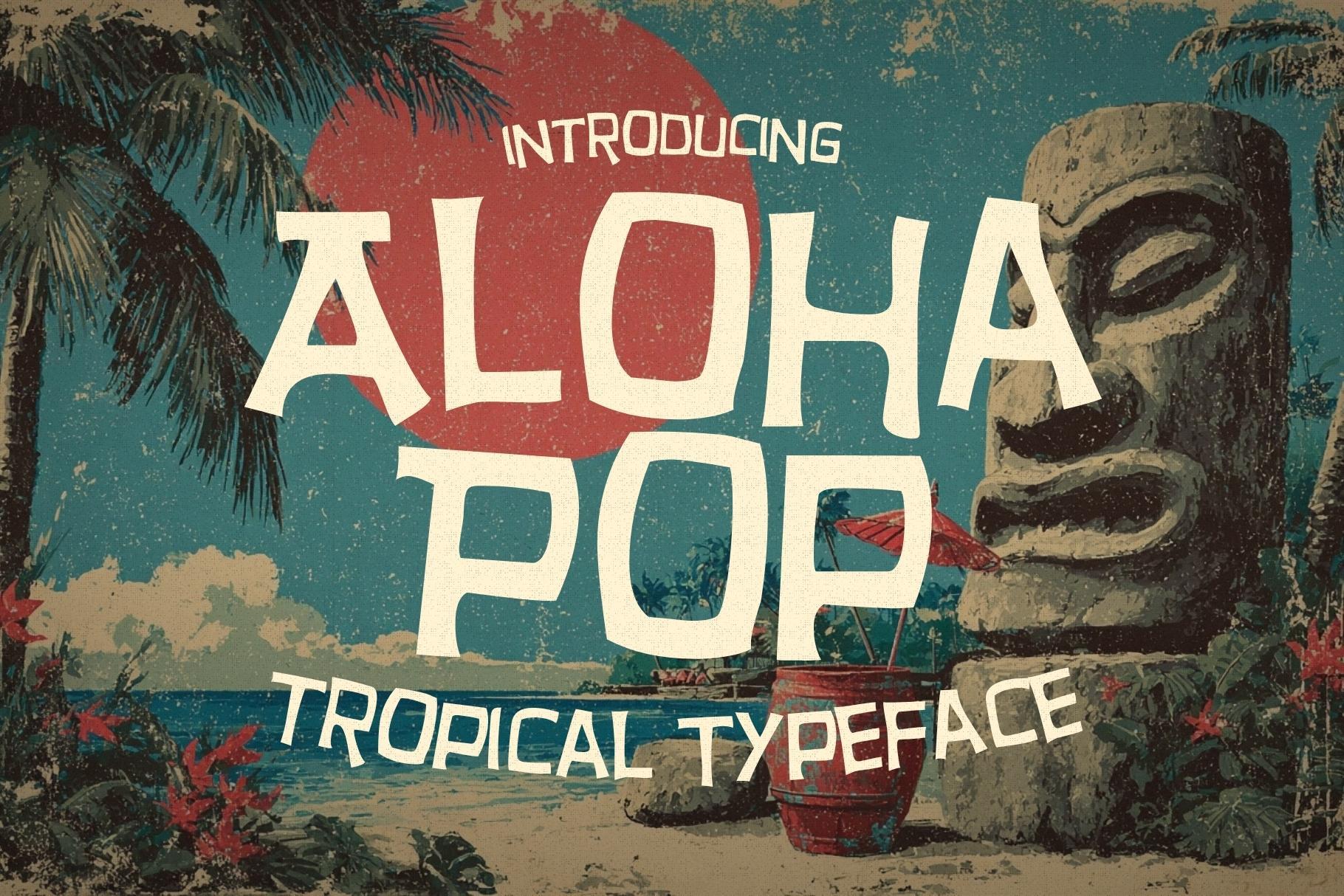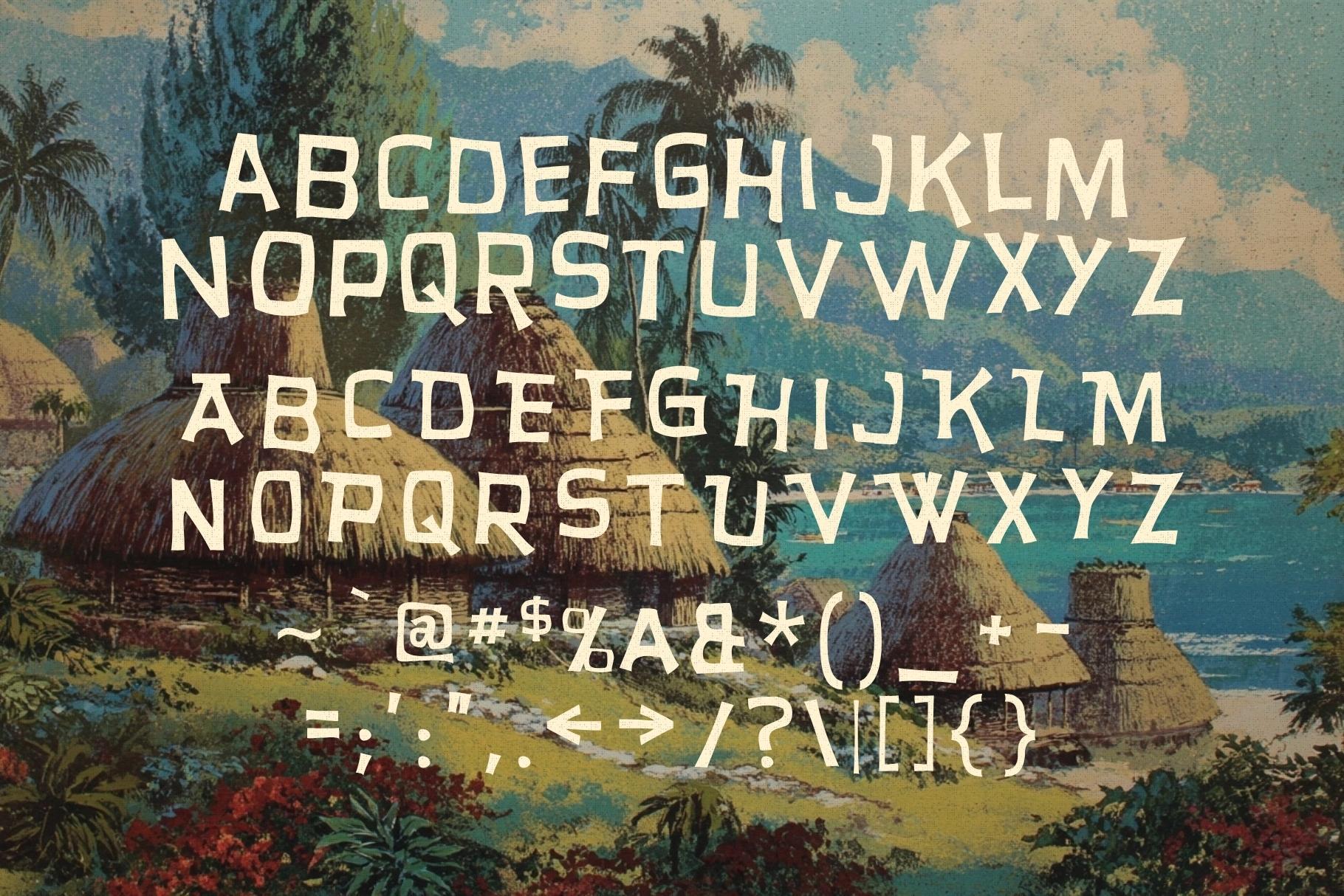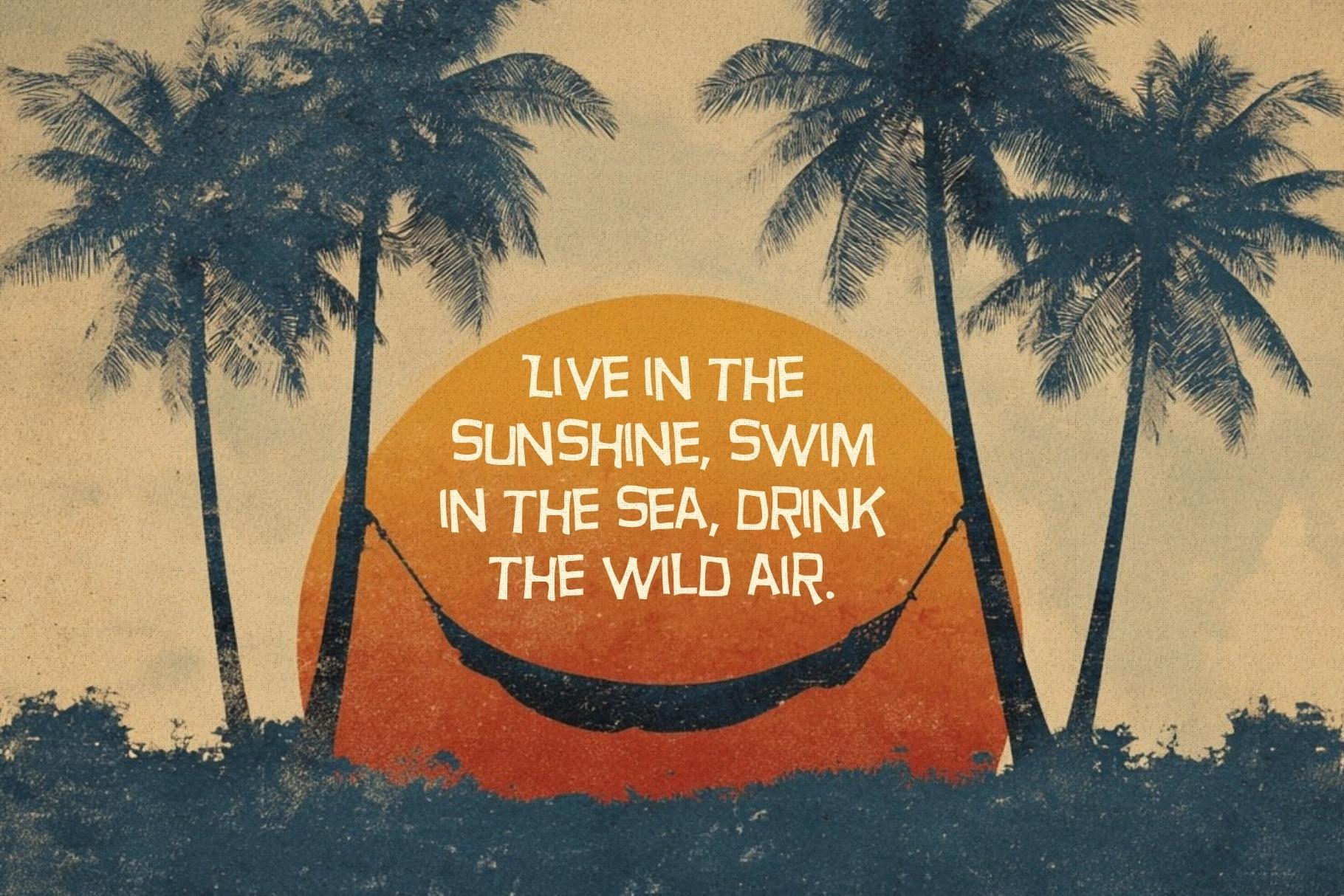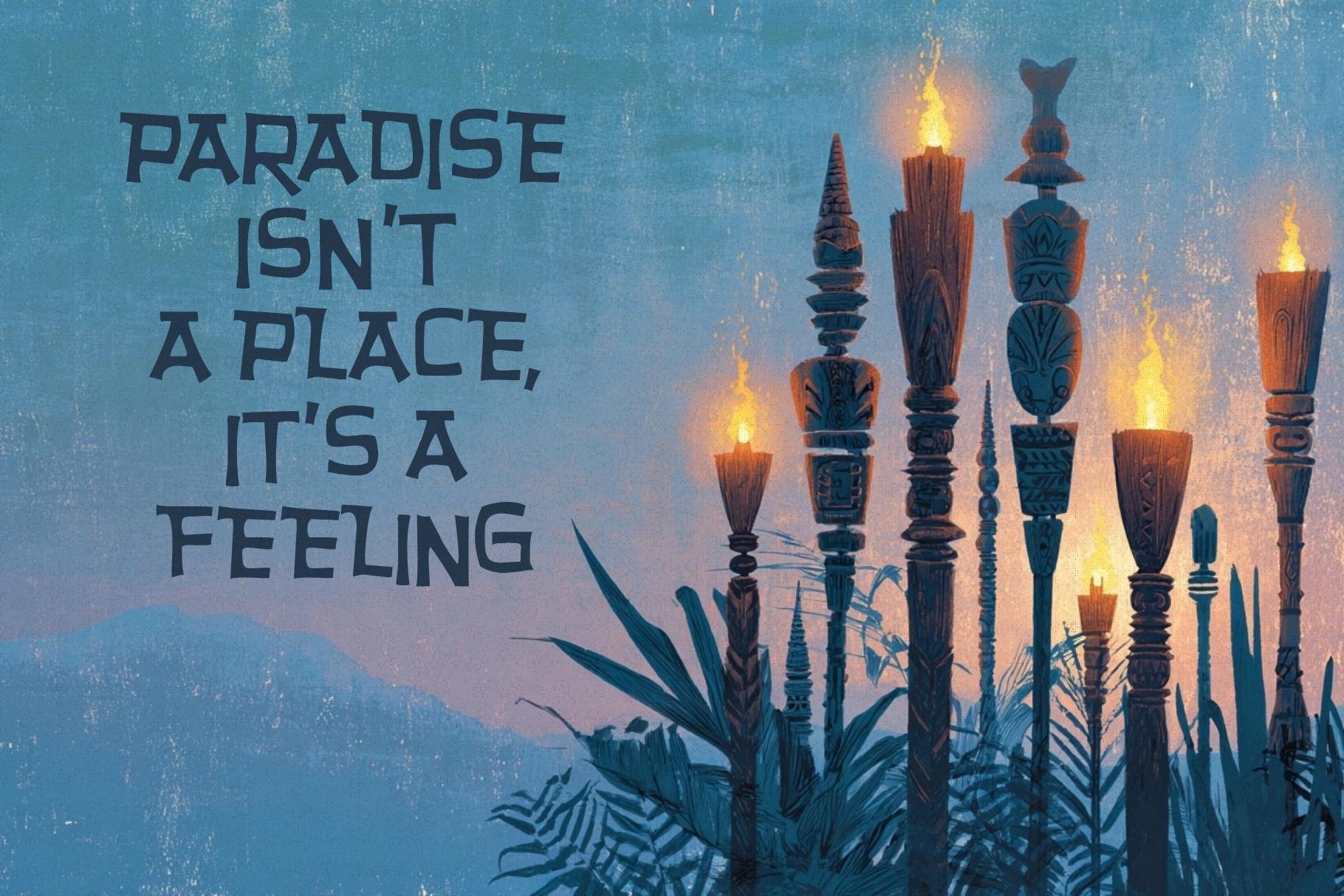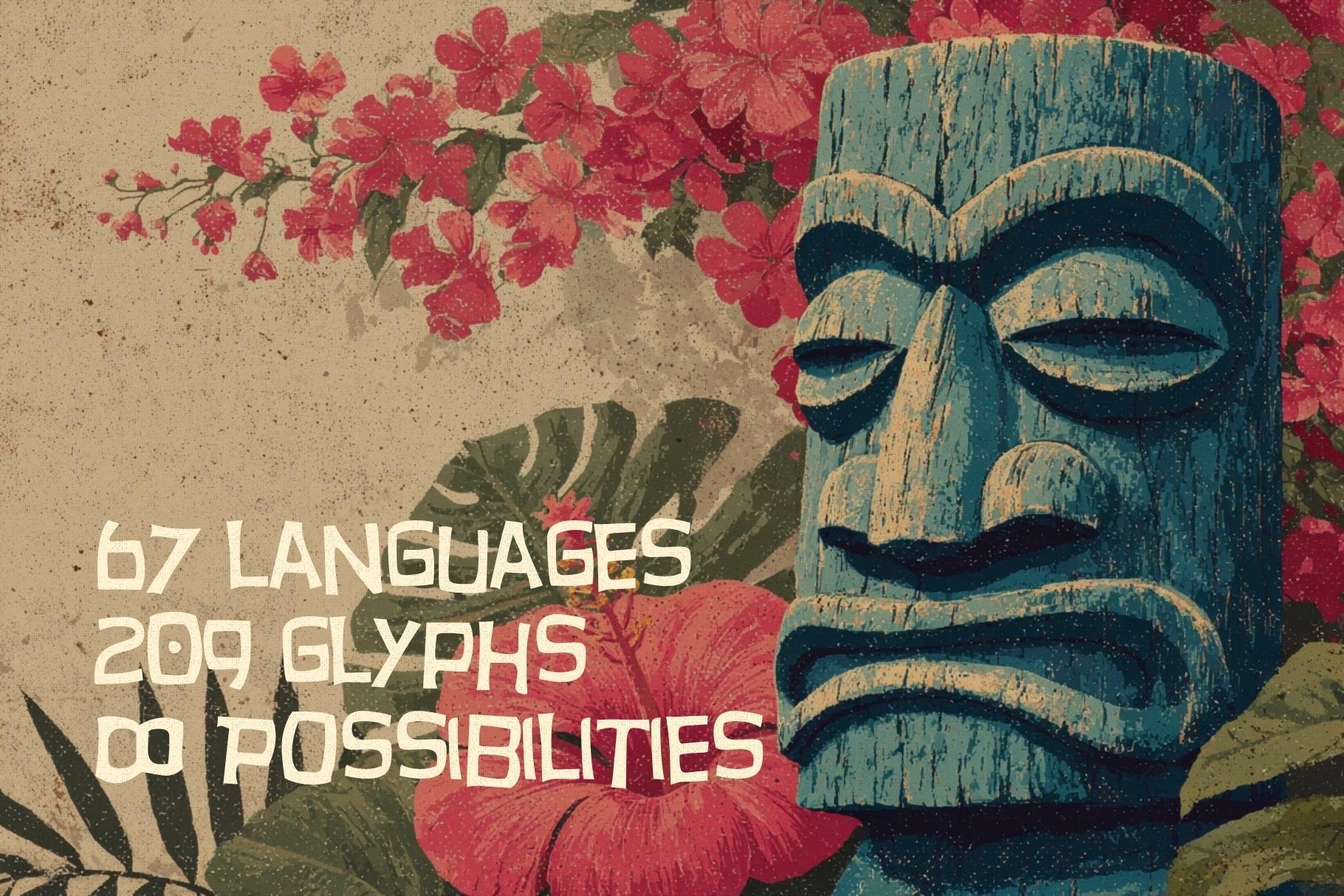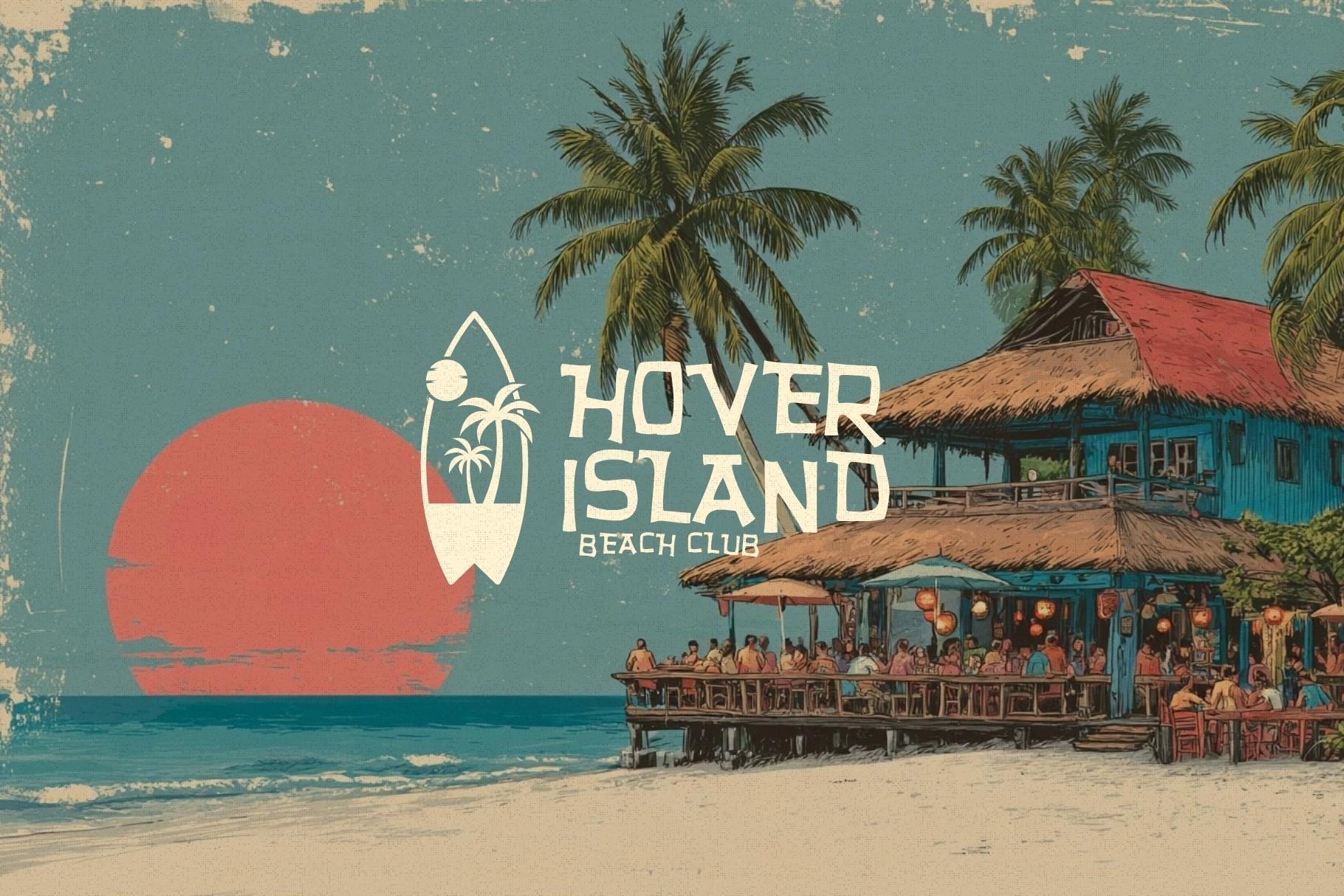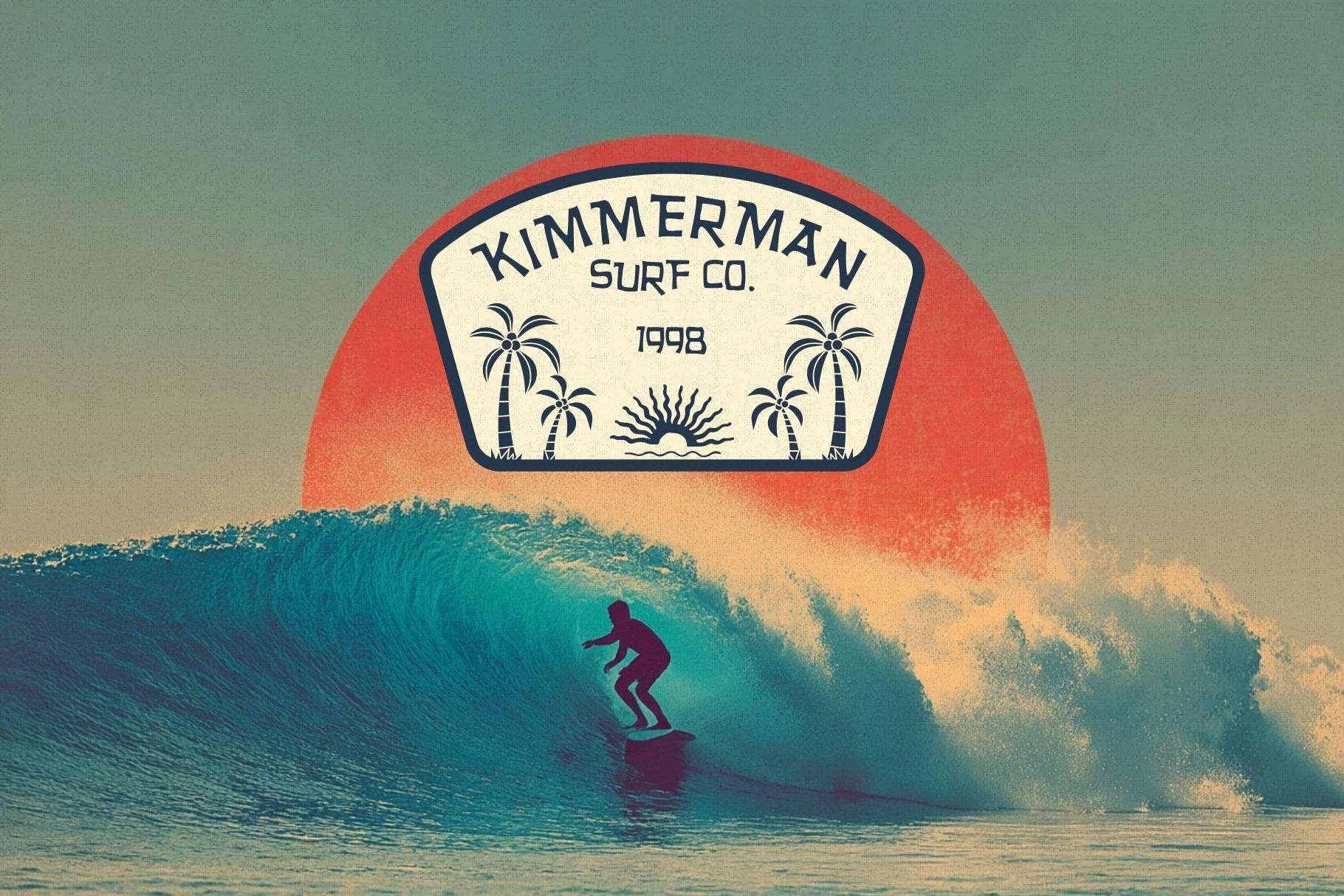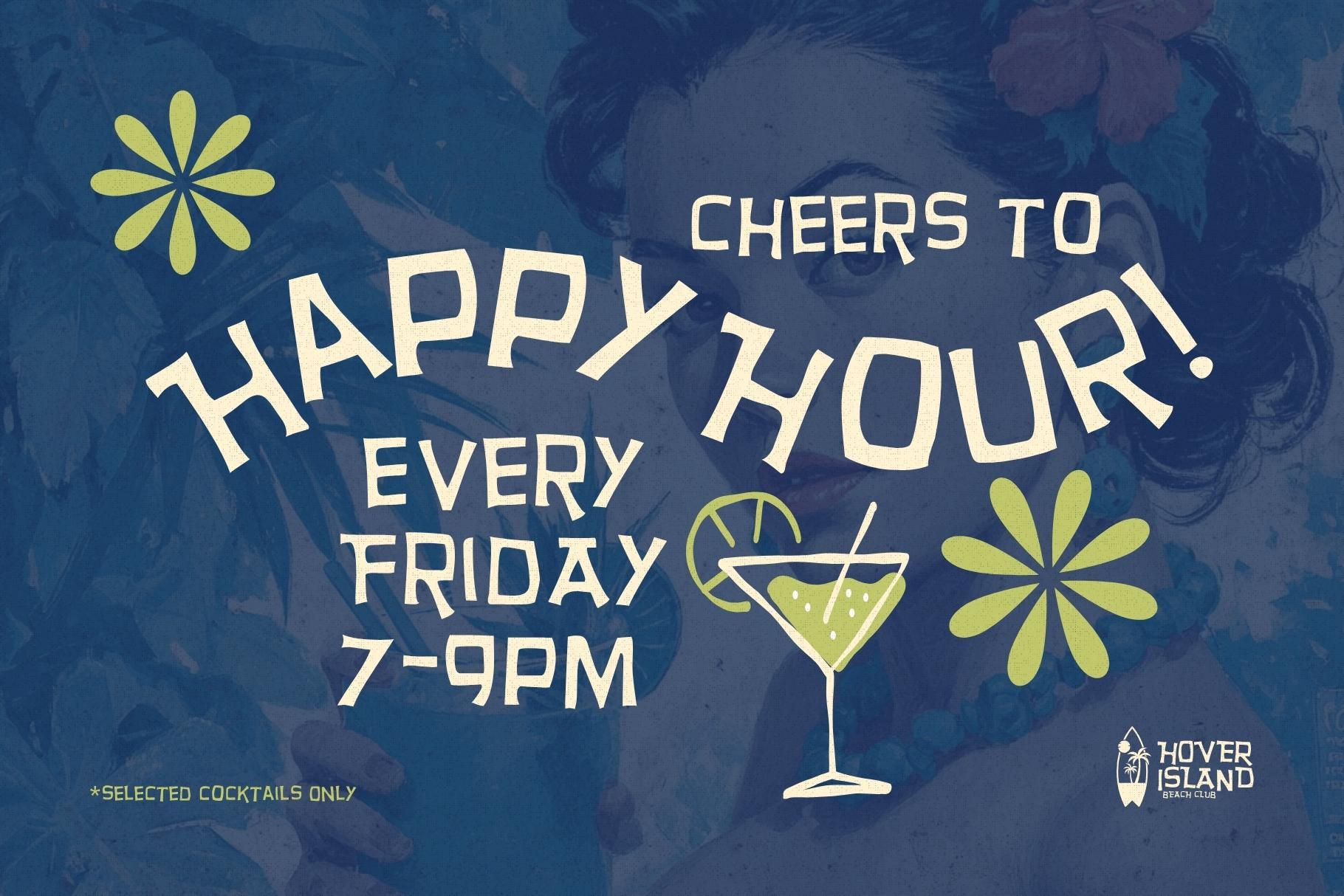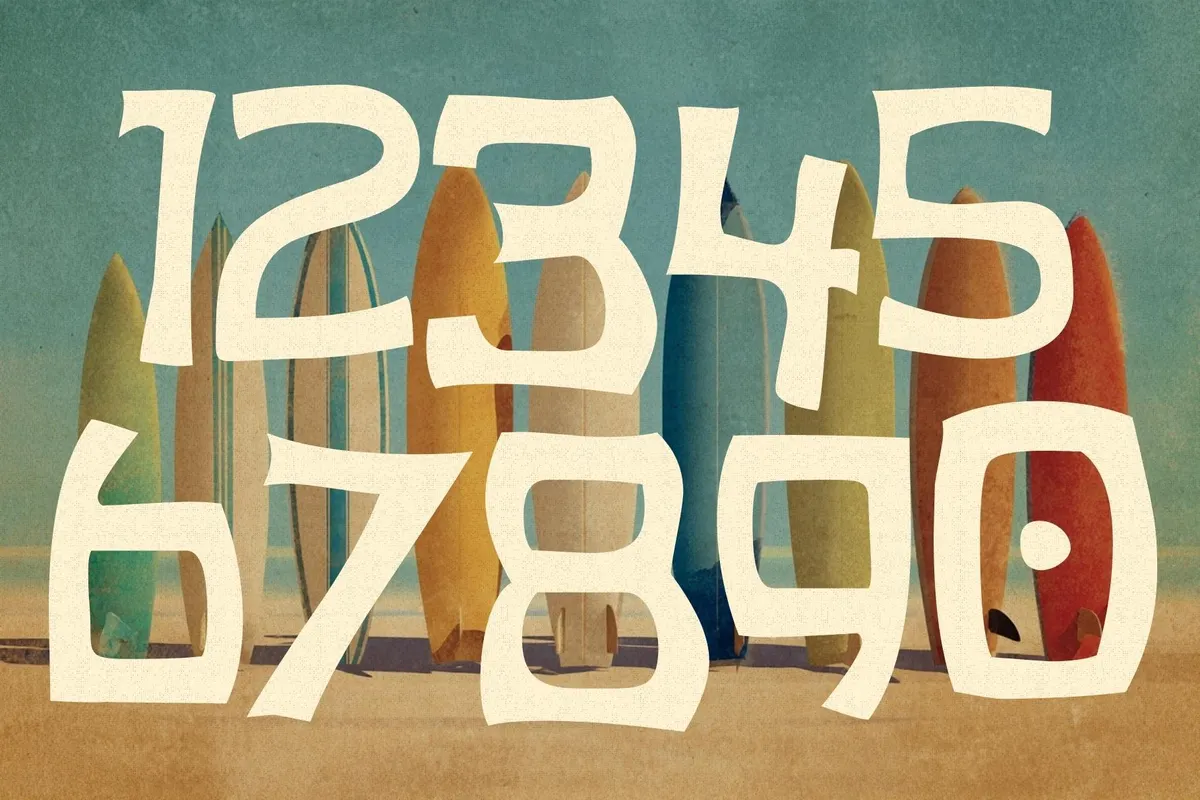
Aloha Pop - Tropical Tiki Typeface
AlohaPop
Say hello to Aloha Pop, the ultimate handmade typeface that channels the spirit of the tropics with every curve and stroke. Inspired by vintage tiki aesthetics, Hawaiian charm, and the carefree energy of summer , this bold and playful font is your passport to paradise.
Whether you're designing for beach parties, surf brands, travel blogs, or tropical-themed packaging, Aloha Pop brings the sunshine with its vibrant personality and handcrafted warmth.
With its breezy curves and sun-kissed style, Aloha Pop turns any project into a celebration of tropical living. Let your creativity ride the waves.